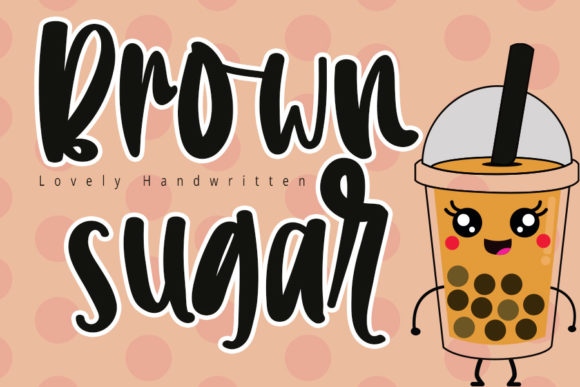
Brownsugar Font: A Casual and Friendly Display Font
Brownsugar font is a unique and versatile display font that has gained popularity among designers and typography enthusiasts. Its natural and friendly style makes it an excellent choice for a wide range of design projects, from branding and advertising to packaging and digital media. In this article, we’ll explore the features and benefits of Brownsugar font, and discuss how it can elevate your design work.
What is Brownsugar Font?
Brownsugar font is a casual and friendly display font designed to add a touch of warmth and personality to your designs. Its distinctive style is characterized by rounded edges, subtle imperfections, and a relaxed, handwritten feel. This font is perfect for creating eye-catching headlines, titles, and captions that require a personal and approachable tone.
Key Features of Brownsugar Font
- Unique and Natural Style: Brownsugar font boasts a one-of-a-kind design that sets it apart from other fonts. Its natural and organic feel makes it perfect for designs that require a human touch.
- Casual and Friendly: This font exudes a sense of warmth and approachability, making it ideal for designs that aim to connect with the audience on a personal level.
- Versatile: Brownsugar font can be used in a variety of design projects, from branding and advertising to packaging and digital media.
- Easy to Read: Despite its casual nature, Brownsugar font is highly legible, making it perfect for use in body text, headlines, and titles.
The Benefits of Using Brownsugar Font
So, why should you choose Brownsugar font for your design projects? Here are some benefits that make it an excellent choice:
- Stand Out from the Crowd: Brownsugar font’s unique style ensures that your designs stand out from the competition and grab the audience’s attention.
- Emotional Connection: The font’s friendly and approachable nature helps create an emotional connection with the audience, making your designs more relatable and engaging.
- Flexibility: Brownsugar font can be used in various design contexts, from digital media to print materials, making it a versatile addition to your font library.
- Time-Saving: With Brownsugar font, you can create stunning designs quickly and efficiently, saving you time and effort in the design process.
Design Applications for Brownsugar Font
Brownsugar font is an incredibly versatile font that can be used in a wide range of design applications, including:
- Branding and Logo Design: Create memorable and engaging brand identities with Brownsugar font.
- Advertising and Marketing: Use Brownsugar font to create eye-catching headlines and titles that grab the audience’s attention.
- Packaging Design: Add a personal touch to your packaging designs with Brownsugar font’s unique and natural style.
- Digital Media: Use Brownsugar font in digital media, such as social media graphics, blog posts, and website headers.
Tips for Using Brownsugar Font Effectively
To get the most out of Brownsugar font, here are some tips to keep in mind:
- Pair with Other Fonts: Experiment with pairing Brownsugar font with other fonts to create visually appealing combinations.
- Adjust Font Size and Color: Adjust the font size and color to suit your design needs and ensure optimal legibility.
- Use in Moderation: Use Brownsugar font in moderation to avoid overwhelming the audience and to maintain design balance.
In conclusion, Brownsugar font is a unique and versatile display font that can elevate your design work with its natural and friendly style. Its benefits, including its ability to create an emotional connection with the audience, make it an excellent choice for a wide range of design projects. By following the tips outlined in this article, you can use Brownsugar font effectively and create stunning designs that stand out from the crowd.
FAQs about Brownsugar Font
- What is Brownsugar font?
- Brownsugar font is a casual and friendly display font designed to add a touch of warmth and personality to your designs.